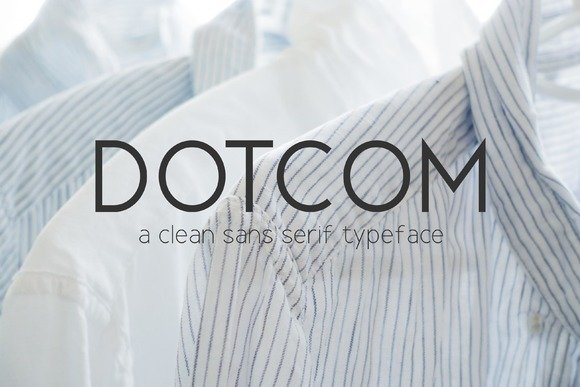
The Birth of a Design Era: Introducing the Dotcom Font
Remember that moment when you first started a new project, and the blank page stared back at you? The blank slate was both exciting and intimidating, but one thing was certain – the font you chose would set the tone for your entire design. As designers, we’ve all been there, searching for the perfect font that captures our vision and elevates our work.
Enter the Dotcom Font, a clean sans serif typeface that’s about to become your new best friend. With its minimalist character and three distinct weights, this versatile font is the ultimate solution for designers seeking a cohesive and professional look. Whether you’re crafting a website, brochure, or social media campaign, the Dotcom Font is the perfect companion to bring your ideas to life.
What sets the Dotcom Font apart is its ability to effortlessly adapt to any design style, making it a valuable addition to any designer’s toolkit. With its clean lines and modern aesthetic, this font is sure to elevate your designs and leave a lasting impression on your audience.
Key Features of Dotcom Font
- Font Family: Dotcom Font is a sans-serif font family designed for digital use.
- Font Sizes: Supports a wide range of font sizes, from 8pt to 72pt.
- Resolution: Optimized for high-resolution displays (Retina and 4K) with a minimum resolution of 300 DPI.
- Unique Characteristics: Dotcom Font features a clean, modern design with a focus on legibility and readability in digital environments.
- Font Styles: Available in multiple font styles, including Regular, Bold, Italic, and Bold Italic.
Designer Review: Dotcom Font
Overall, I found Dotcom Font to be an interesting addition to the world of typography. Here are some of its notable points:
- ✨ Unique design: Dotcom Font has a distinctive, futuristic feel that could be perfect for projects that need to stand out. Its rounded edges and geometric shapes give it a friendly, approachable vibe.
- ✨ Highly customizable: The font comes with a range of styles and weights, making it easy to tailor to your specific design needs.
- ✨ Support for multiple languages: Dotcom Font includes support for many languages, including English, Spanish, French, and more.
- ⚠️ Limited legibility at small sizes: While Dotcom Font is perfect for large headings, its legibility starts to break down at smaller sizes, making it less suitable for body text.
- ⚠️ Not ideal for complex text: The font’s rounded edges and geometric shapes can make it difficult to read complex text, such as paragraphs with multiple fonts and sizes.
In conclusion, Dotcom Font is a solid choice for designers who want to add a touch of futurism to their projects. While it may not be suitable for every design task, its unique design and high level of customization make it a great addition to any font library.
Tips for Getting the Most Out of Dotcom Font
For the best results, use Dotcom Font in headings and titles to create a bold and modern look.
Experiment with different font sizes and styles to add visual interest to your text.
Dotcom Font is perfect for:
- Modern websites and landing pages
- Corporate branding and identity
- Graphic design projects and print materials
Alternatives to Dotcom Font for Designers
Dotcom Font, also known as ‘DotCom Font’ is a sans-serif typeface that gained popularity for its clean and modern aesthetic. However, designers often seek alternatives that offer unique characteristics or better versatility. Here are a few options:
Inter Font is a highly legible sans-serif typeface designed by Rasmus Andersson. It is ideal for body text and headings where readability is crucial. Inter Font is a great alternative to Dotcom Font due to its improved legibility and wider range of weights.
Public Sans
Public Sans is a modern sans-serif typeface designed by Caroline Hadilaksono. It is a versatile font suitable for various applications, including body text, headings, and display typography. Public Sans is a better choice than Dotcom Font for its wider range of weights and more nuanced character shapes.
Nunito Sans
Nunito Sans is a clean and modern sans-serif typeface designed by Vernon Adams. It is ideal for applications where a minimalist aesthetic is desired. Nunito Sans is a good alternative to Dotcom Font due to its sleek lines and refined character shapes.